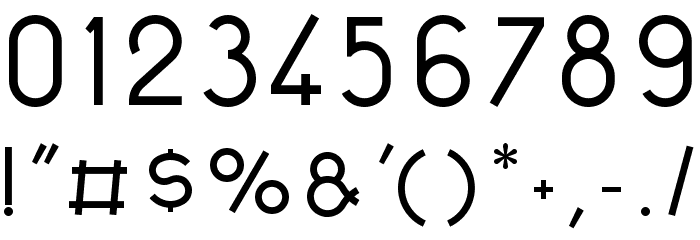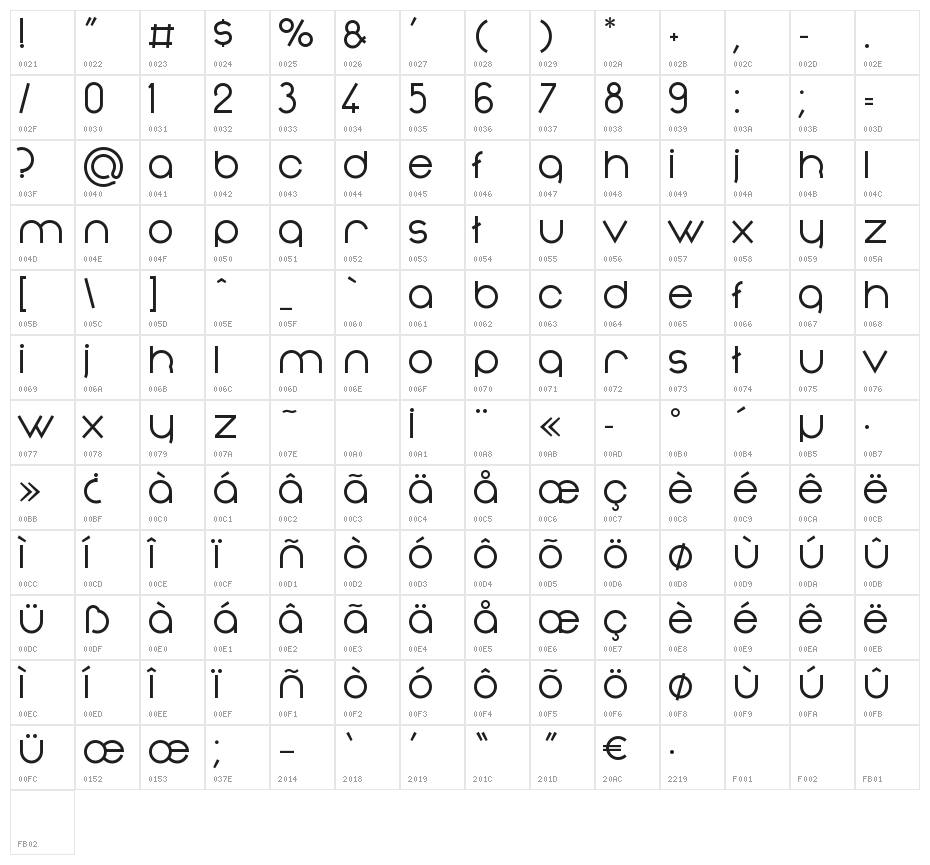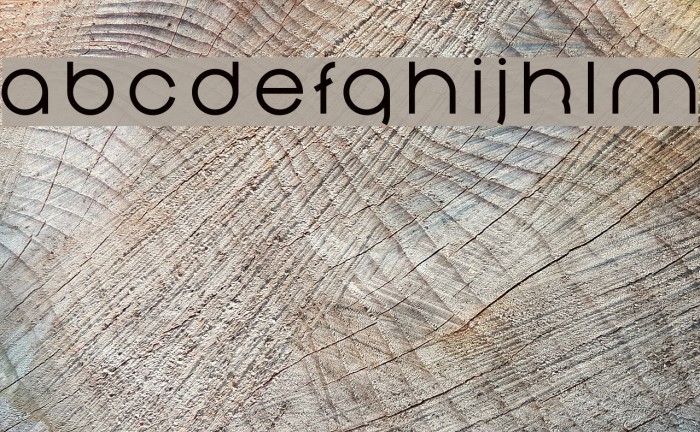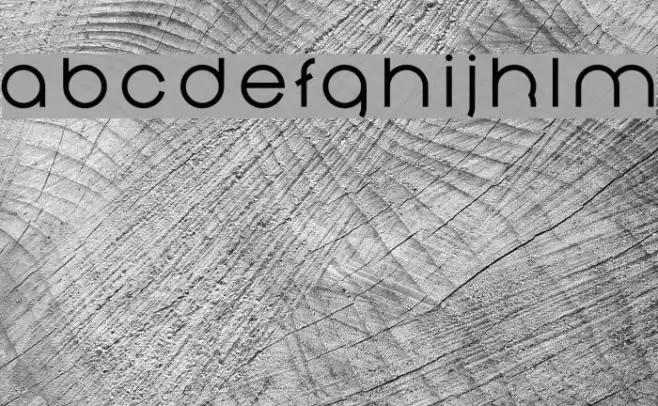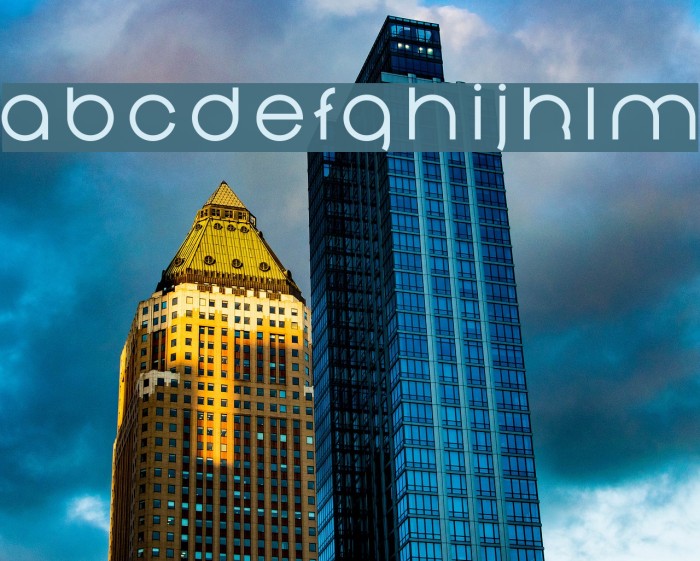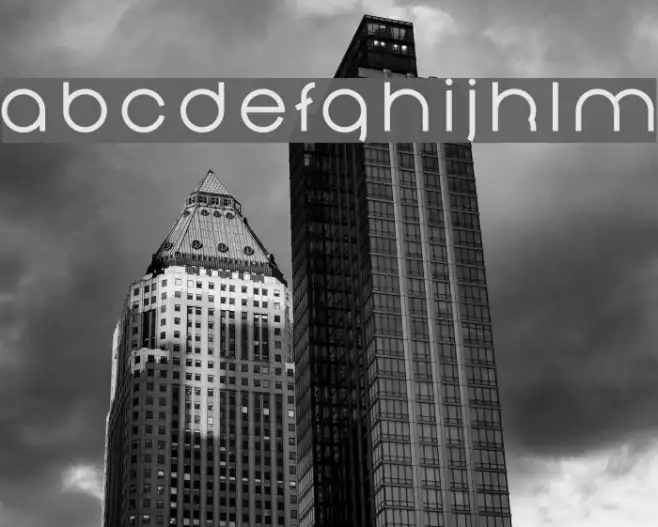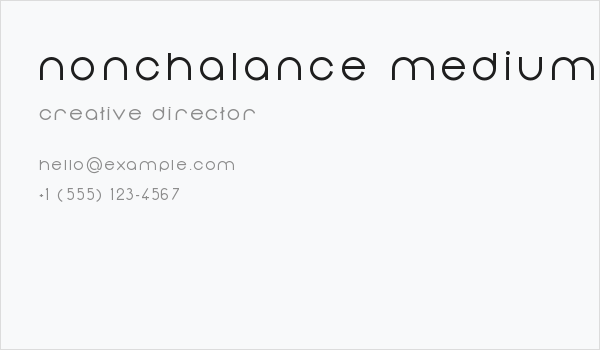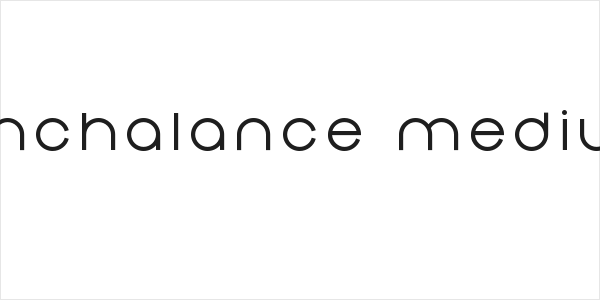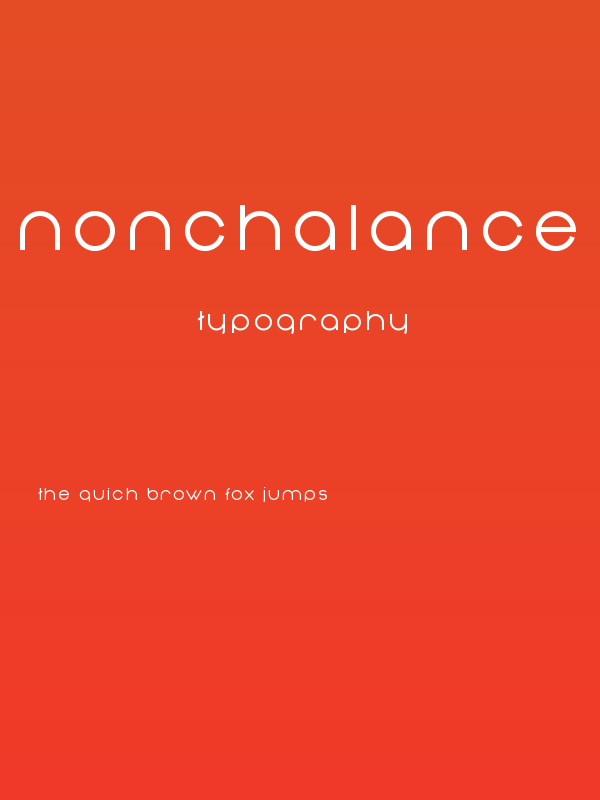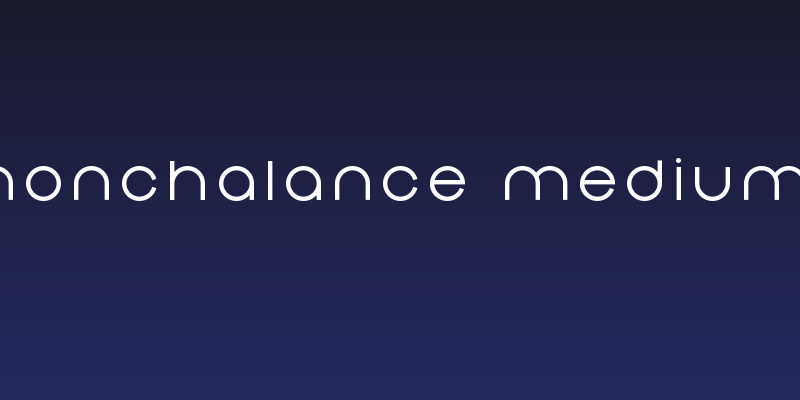
Nonchalance Medium Font
Nonchalance Medium Description
This font features a clean, geometric design with a modern aesthetic. The characters are evenly spaced, creating a harmonious and balanced appearance. The rounded edges and uniform stroke widths contribute to its sleek and contemporary look. The font maintains a consistent weight throughout, providing a sense of stability and professionalism. Its simplicity and clarity make it highly legible, suitable for a variety of applications. The numerals and special characters are designed to match the overall style, ensuring a cohesive visual experience.
Use CaseHeadlines, Body text, Logos
Proposed ProjectsIdeal for branding, web design, advertising, and editorial projects where a modern and professional appearance is desired.